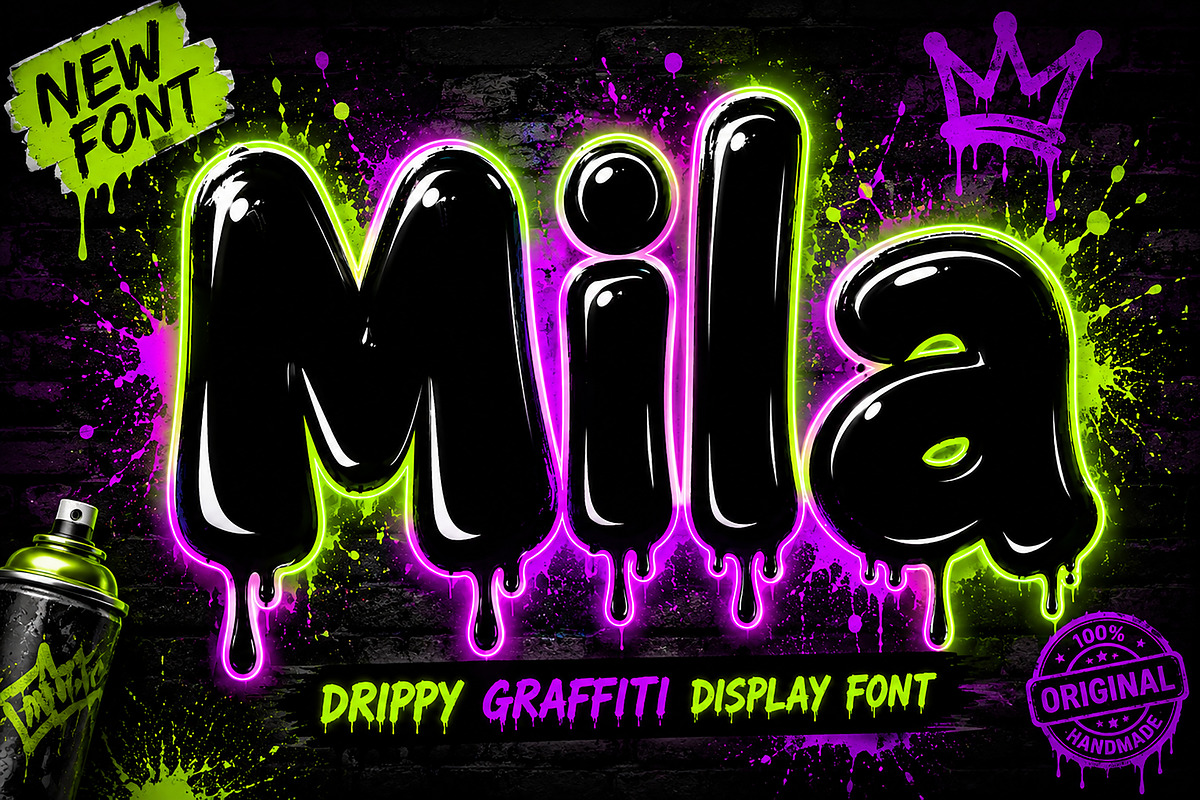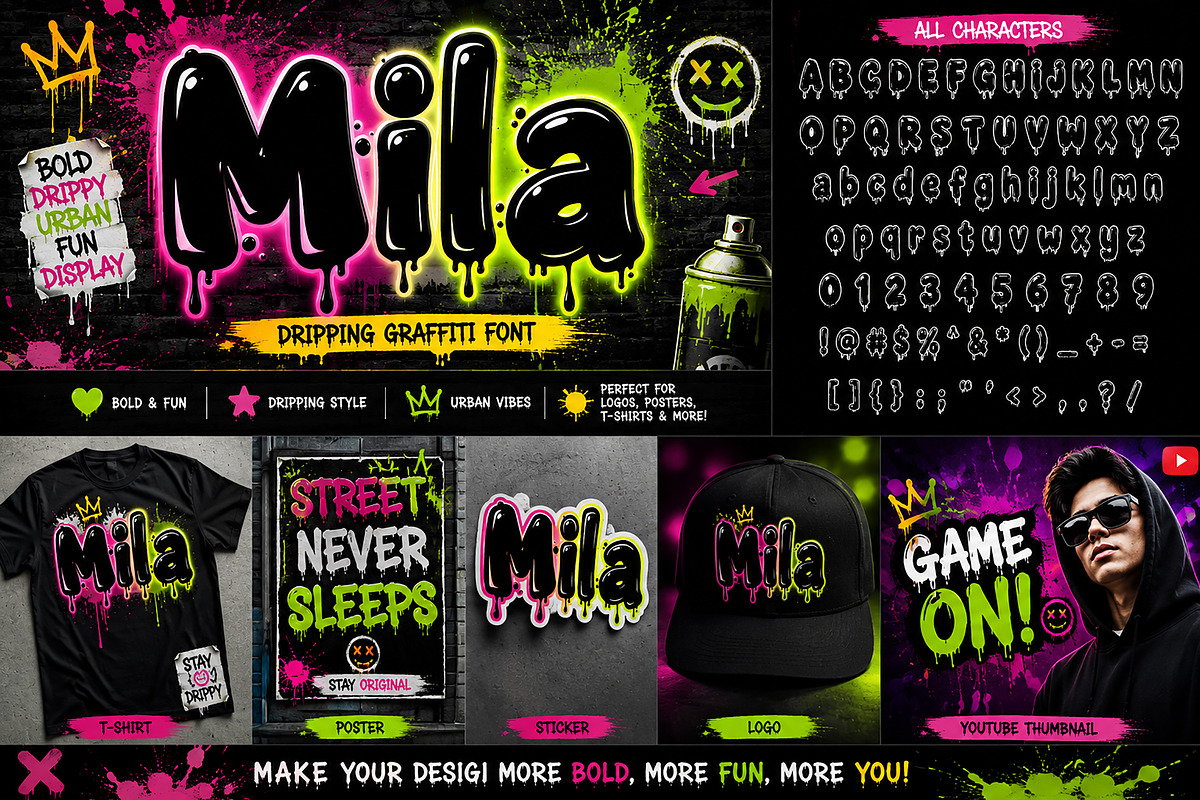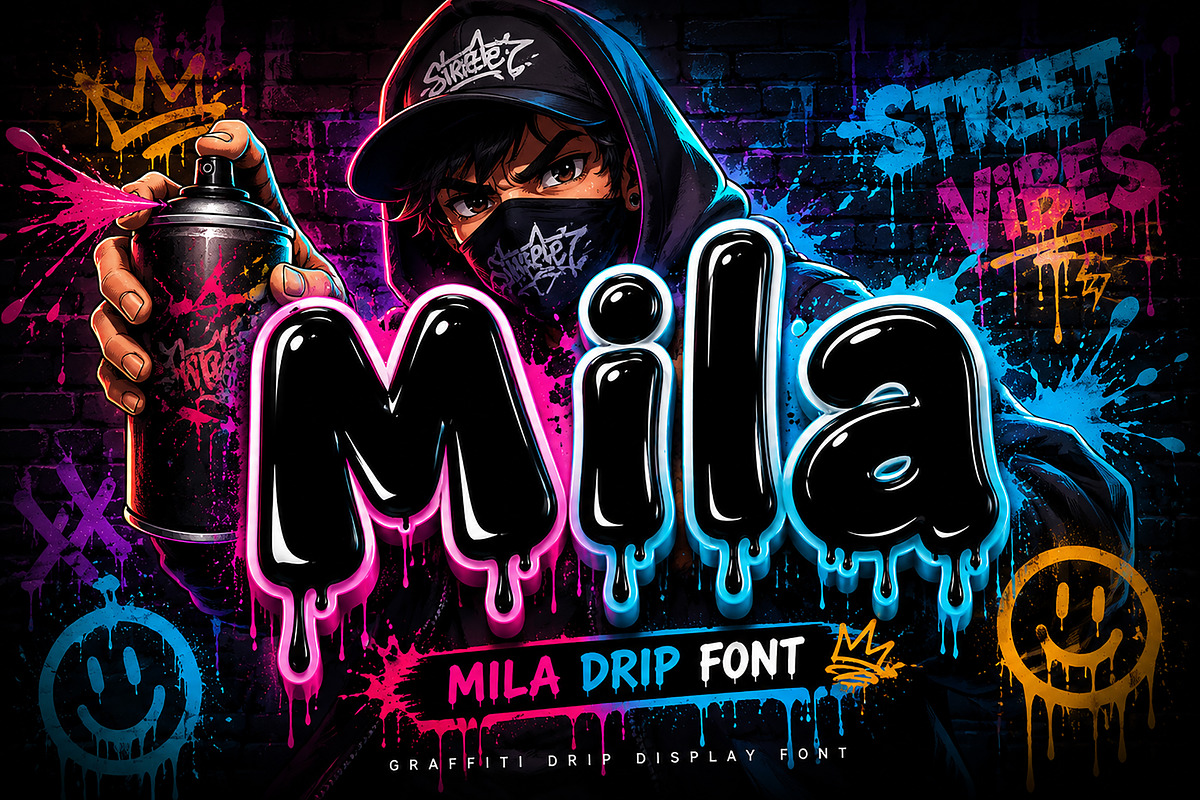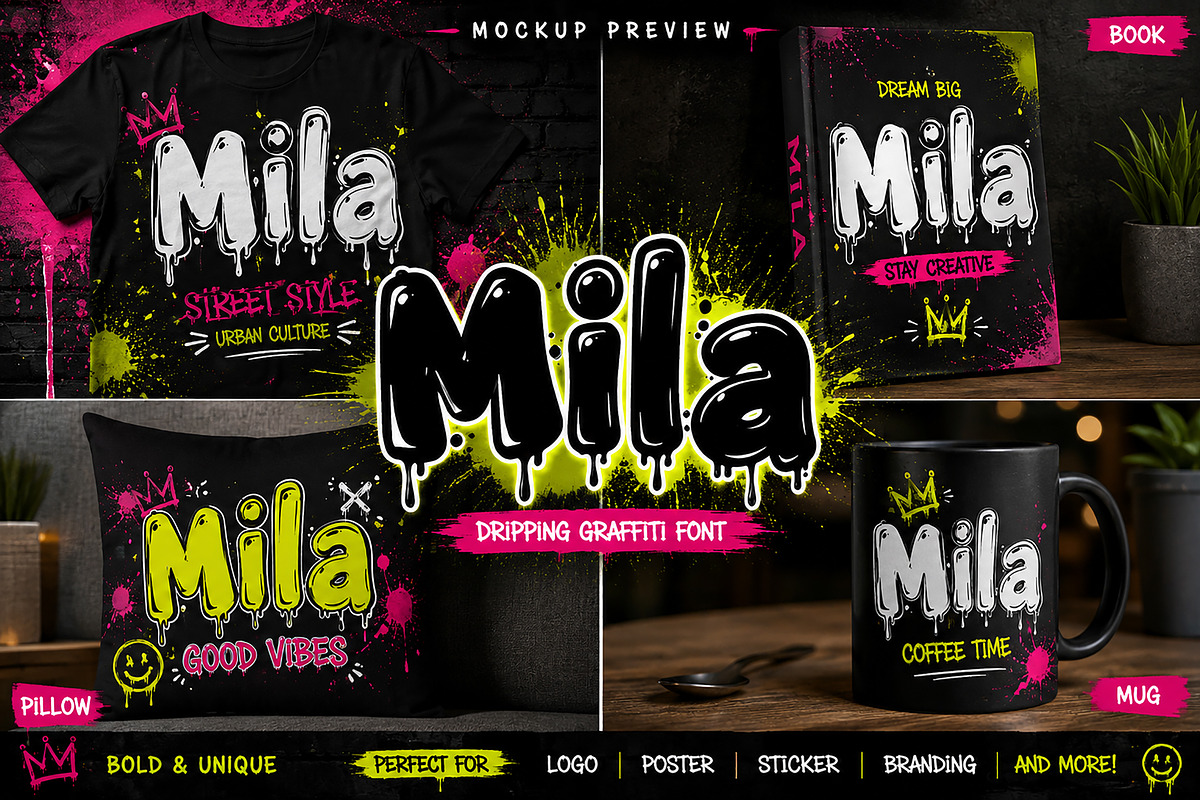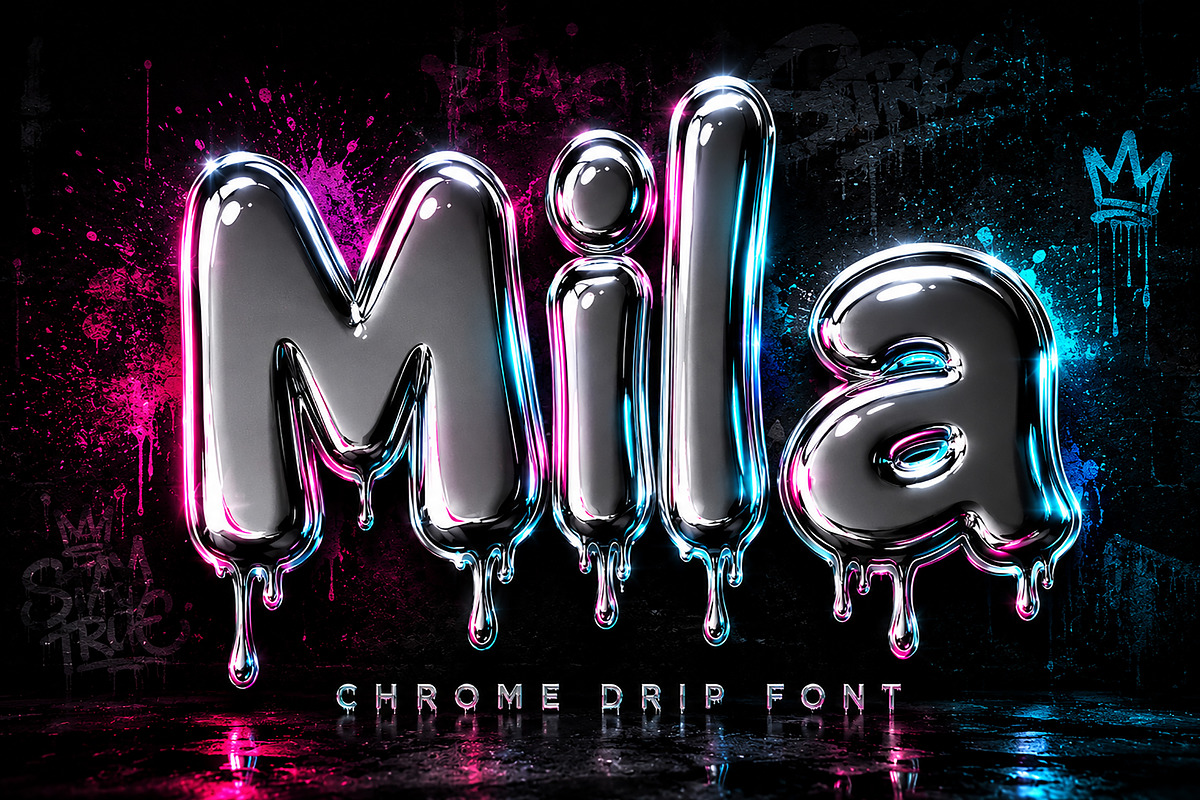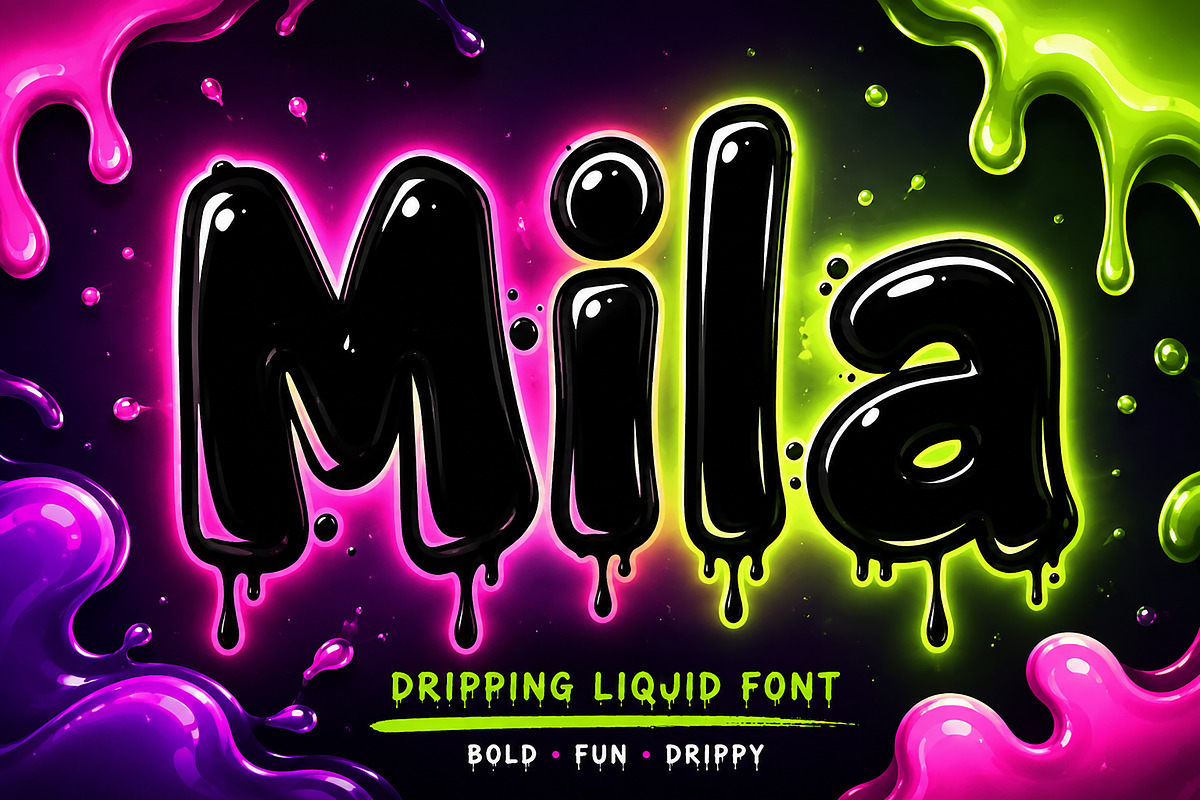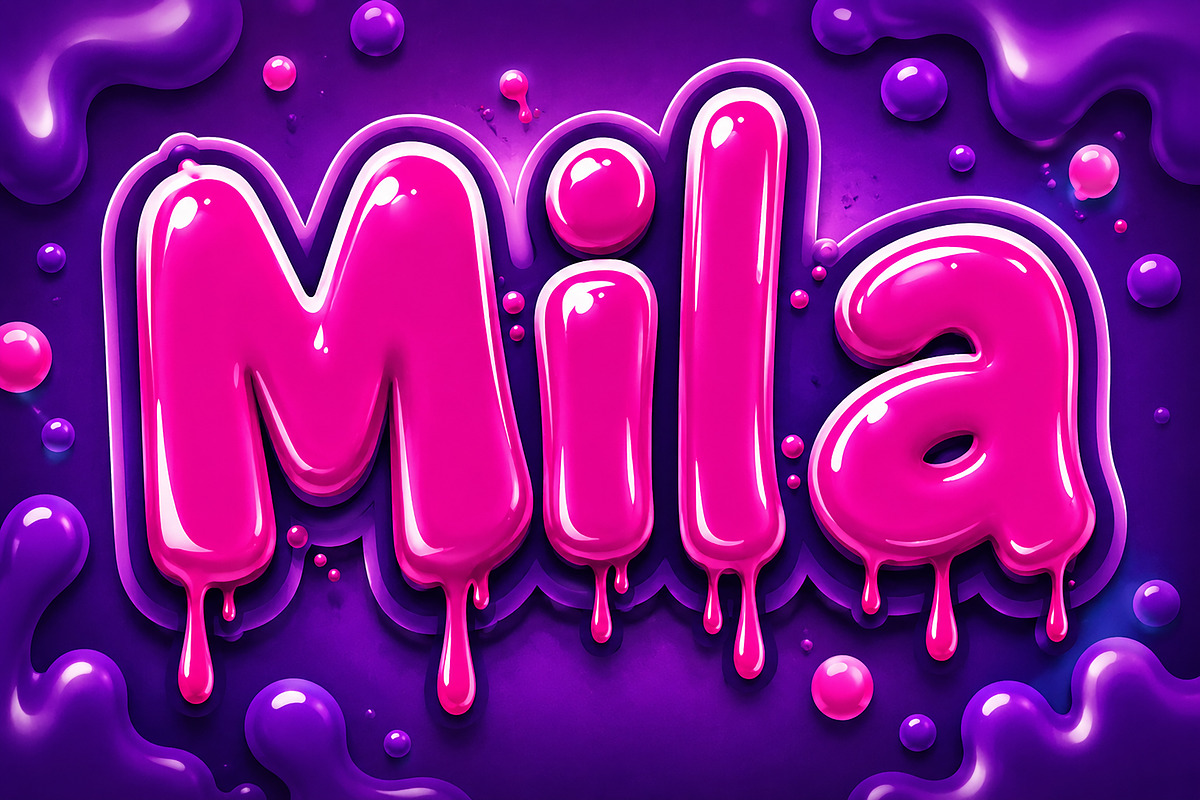
Mila
Mila – Dripping Bubble Display Font
Mila is a playful dripping bubble font with a glossy cartoon style, perfect for kids’ designs, stickers, gaming graphics, and fun creative projects.
Mila is a bold and playful display font featuring chunky bubble letterforms with unique dripping details and glossy highlights. Designed with a fun cartoon-inspired aesthetic, this font brings energetic personality and eye-catching charm to any creative project.
Its soft rounded shapes combined with dripping effects create a trendy and expressive look that works perfectly for playful branding, stickers, gaming content, social media graphics, and children’s designs. Mila delivers a fun visual impact while keeping text readable and stylish.
Whether you're designing cute logos, YouTube thumbnails, party invitations, apparel graphics, or colorful packaging, Mila adds creativity, fun, and modern cartoon vibes to your typography.
This font is perfect for creators who want bold lettering with a playful, drippy, and youthful personality.
Uppercase letters
Lowercase letters
Bubble display style
Dripping decorative effect
Glossy cartoon appearance
Bold and playful personality
Easy-to-read letterforms